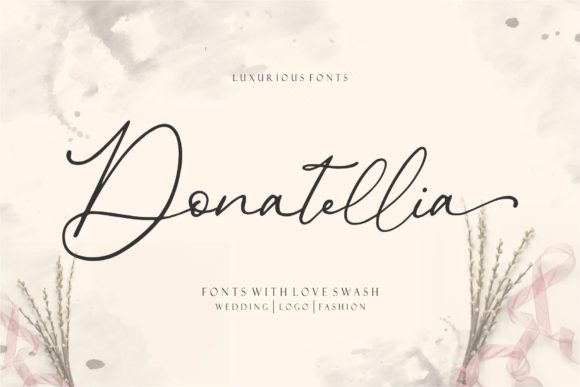
Behold, Donatellia! Immerse yourself in a world of exquisite calligraphy, where each stroke dances across the page with effortless grace. Prepare to be captivated by this mesmerizing script font, a true masterpiece crafted by the talented artisans at Garisman Studio.
With Donatellia, the mundane act of writing transforms into an artistic journey. Its fluid lines and enchanting curves evoke a sense of elegance and sophistication that will leave you breathless. Whether you're a seasoned calligrapher or just starting your adventure with the written word, Donatellia will ignite your creativity and guide you towards stunning results.
Unleash your inner storyteller and let the beauty of Donatellia enhance your every creation. Its versatility knows no bounds, making it the perfect choice for a wide range of projects. From intimate love letters to grand invitations, from enchanting social media posts to captivating marketing campaigns, Donatellia will add a touch of magic to your words.
Imagine your loved ones receiving a heartfelt message penned in the flowing script of Donatellia. Its captivating curves will convey your emotions with unparalleled elegance, leaving a lasting impression that will be cherished forever.
Donatellia is more than just a font; it's an expression of your unique style. Its bold strokes and confident presence will command attention and leave a lasting impact. Whether you're a blogger sharing your thoughts with the world, a designer crafting stunning visuals, or an entrepreneur building a brand, Donatellia will elevate your message to new heights.
Step into the enchanting world of Donatellia and discover a font that will ignite your passion for the written word. Its timeless beauty and versatility will inspire you to create masterpieces that will capture hearts and minds. Don't resist the allure of this extraordinary script; embrace it and witness the transformative power it holds!